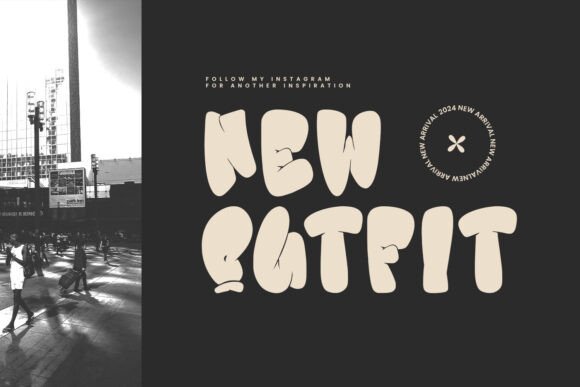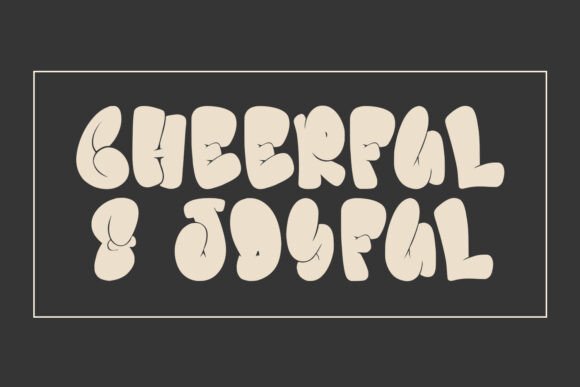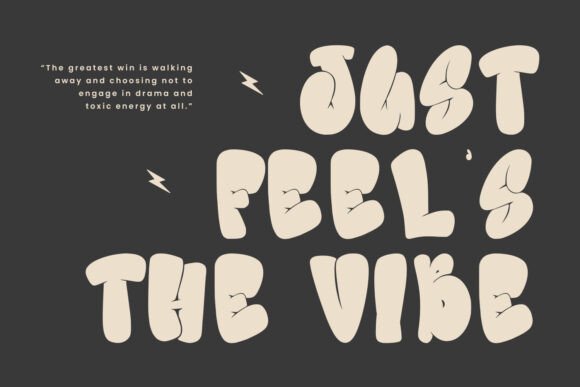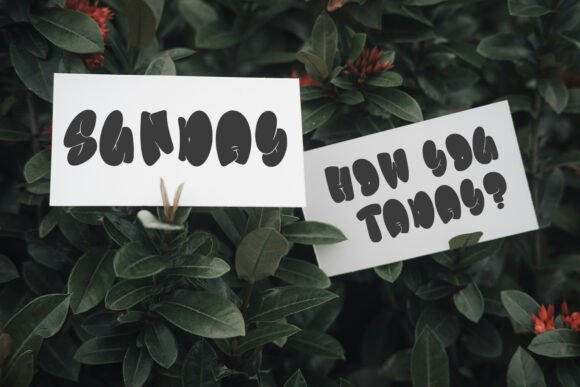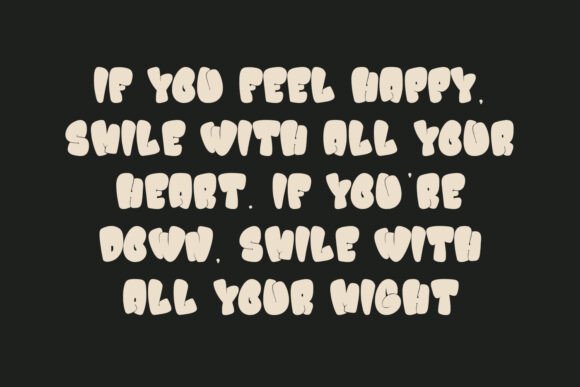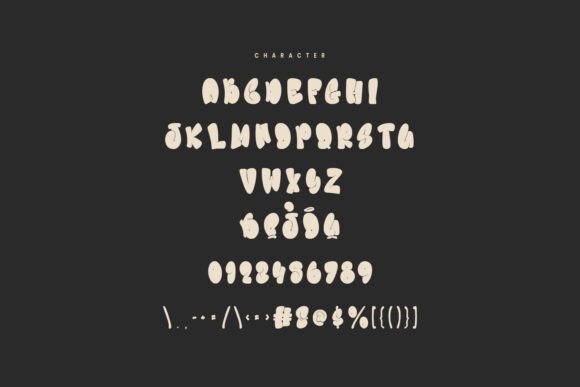
Introduction to Liztoo Font
Liztoo is a playful bubble font inspired by graffiti.
It features round, fun letters that look like theyโve been painted on a wall This eye-catching font is great for making bold and creative designs.
Key Features of Liztoo Font
Why Choose Liztoo Font?